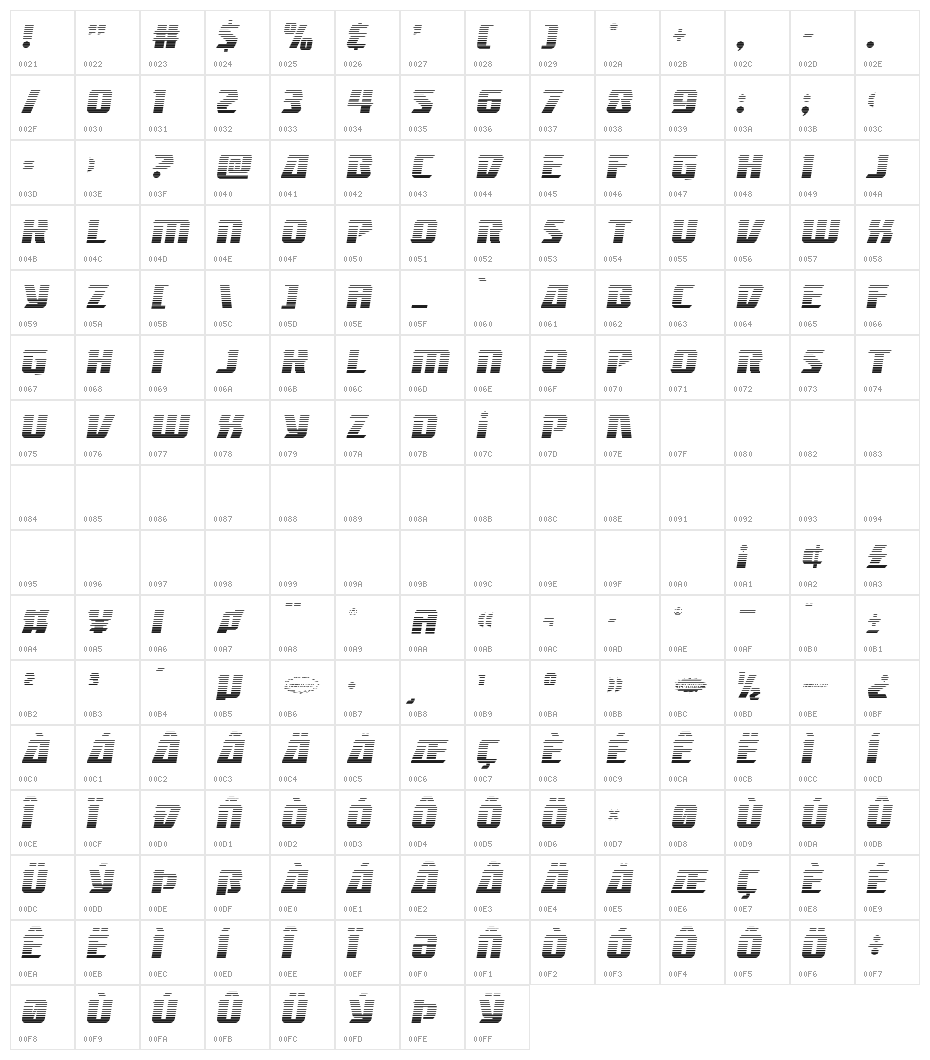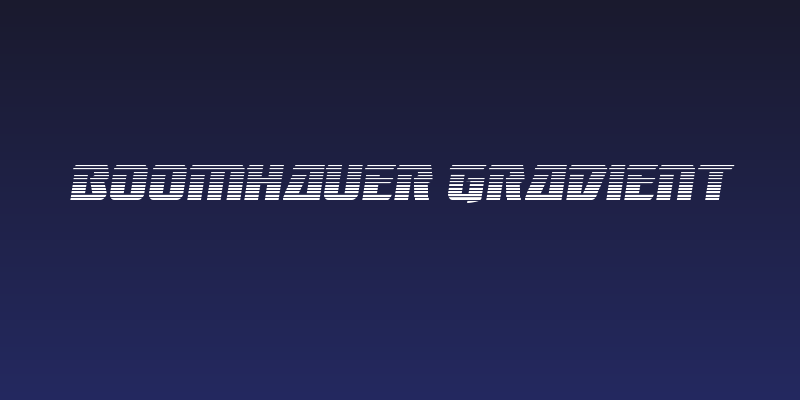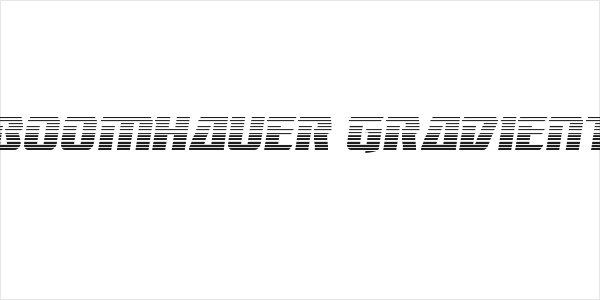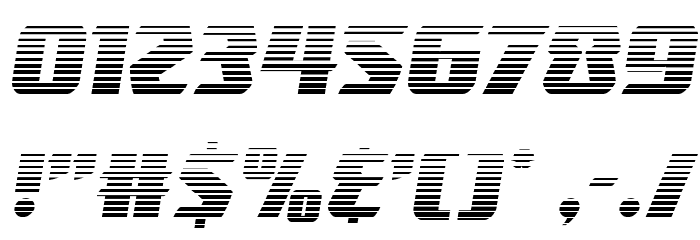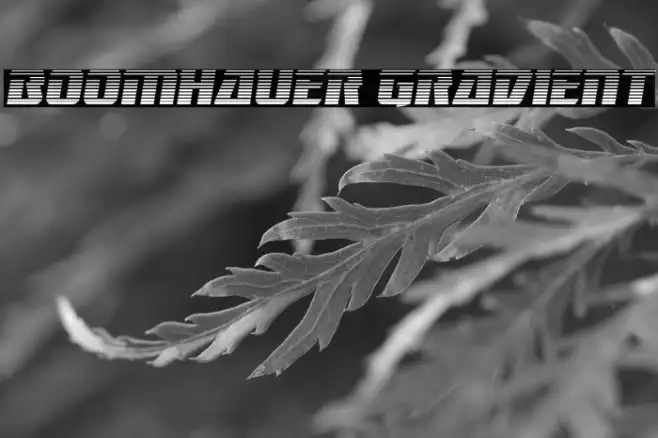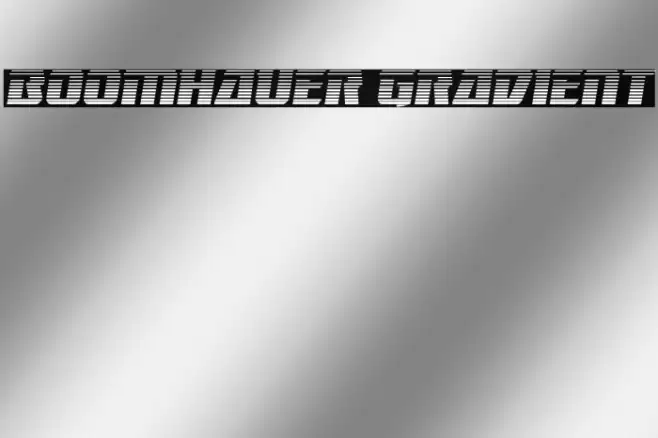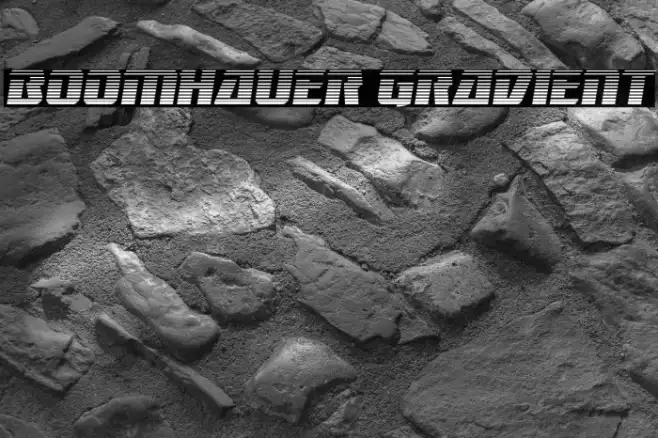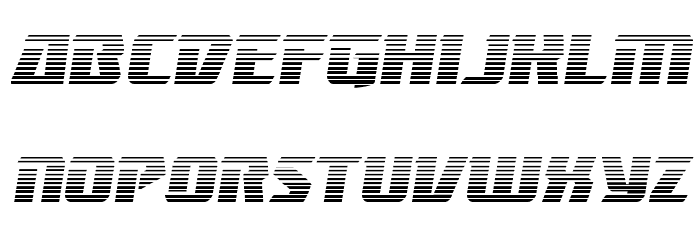
Boomhauer Gradient Font
Boomhauer Gradient Description
This font features a bold, modern design with a distinctive gradient effect created by horizontal lines running through each character. The uppercase and lowercase letters, as well as numbers and special characters, maintain a consistent style that emphasizes a futuristic and dynamic appearance. The angular and geometric shapes of the characters give it a strong, impactful presence, making it ideal for attention-grabbing designs. The unique line pattern within each character adds depth and texture, enhancing its visual appeal.
| Proposed Projects | Ideal for futuristic branding, sports team logos, tech event posters, and dynamic web design. |